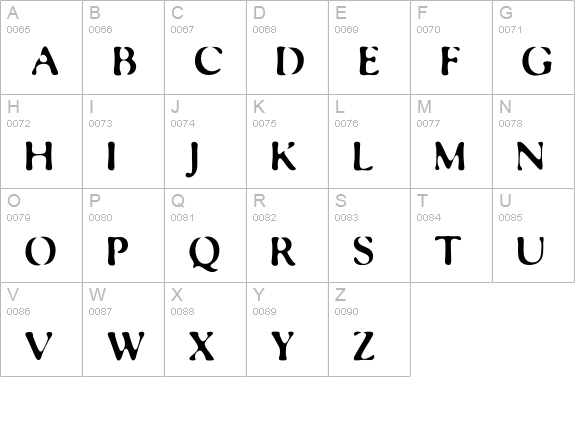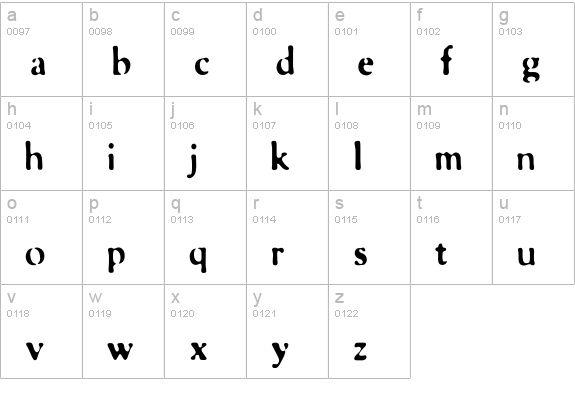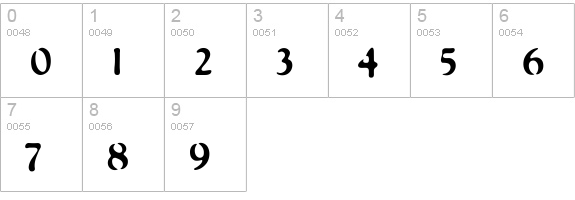
FloMotion Font Details
Introducing FloMotion font - a stunning display typeface that exudes elegance and modernity. With its perfect balance of flowing lines and dynamic movement, this font is ideal for adding a touch of sophistication to any design project. The unique and eye-catching design of FloMotion makes it perfect for branding, logos, headlines, and more. What's even better? FloMotion font is completely free to download at FontsMarket.com! Take advantage of this amazing opportunity to elevate your designs with this beautiful and versatile typeface. Whether you're working on a professional project or simply looking to add a touch of flair to your personal creations, FloMotion font is sure to impress. Download it now and let your creativity flow with this stunning font.